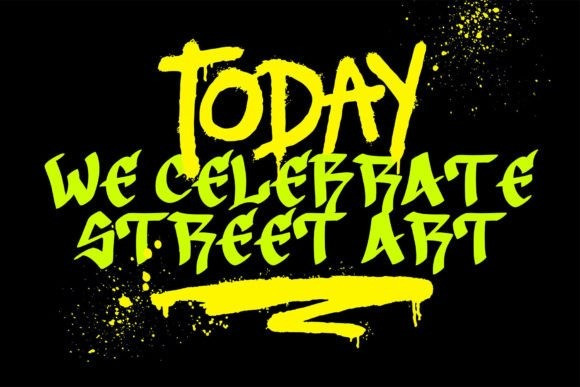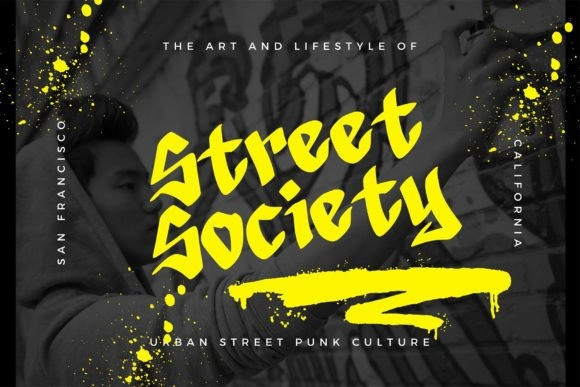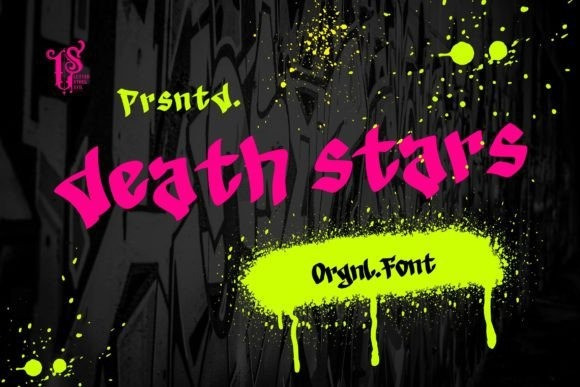
Death Stars Font
Death Stars Font – an original hand-drawn font with graffiti-style vibes. This font adds an edgy and urban feel to your designs, perfect for street art, posters, logos, and more. With its bold strokes and expressive characters, Death Stars brings a rebellious energy to any project.